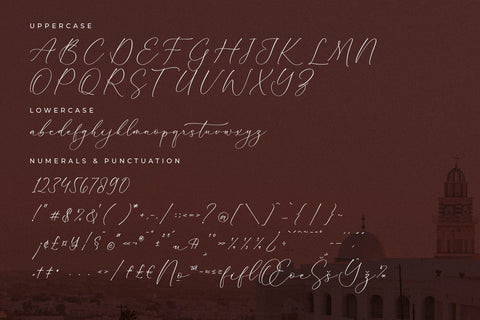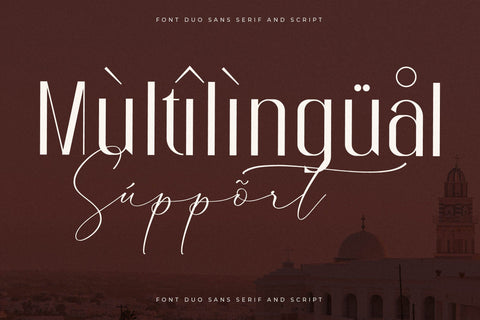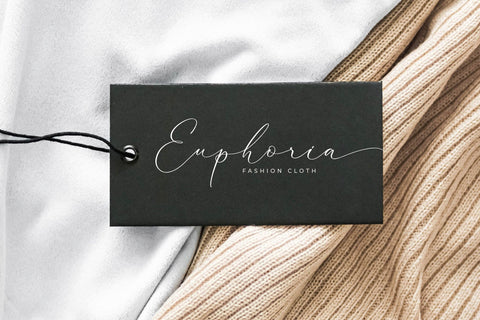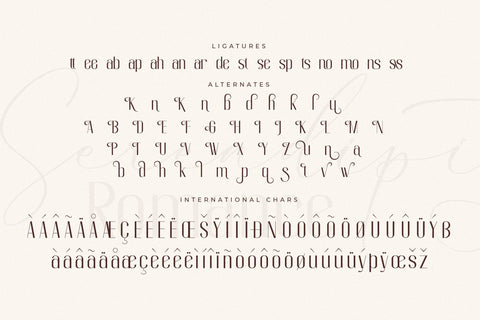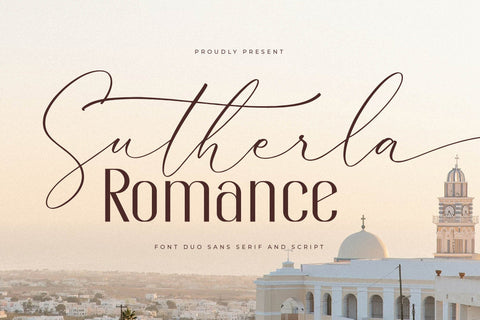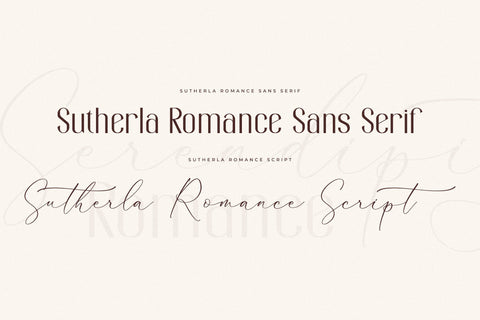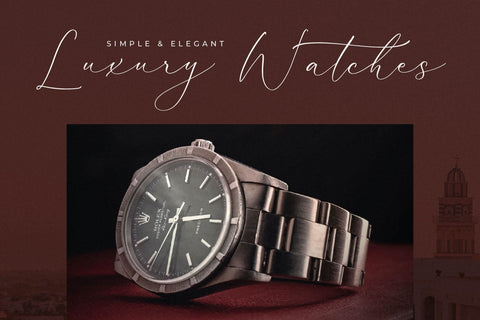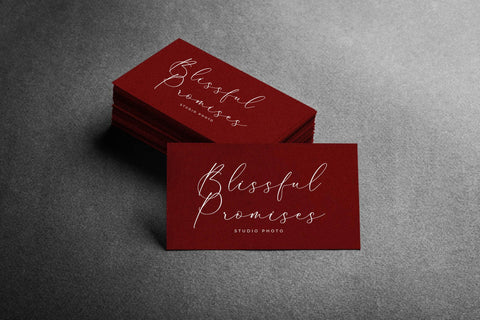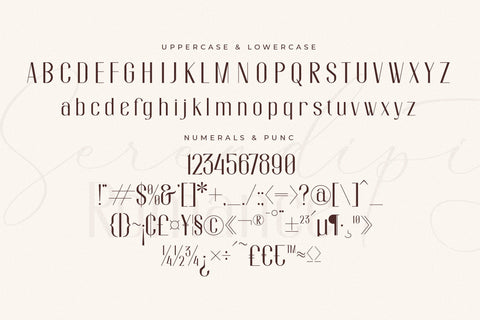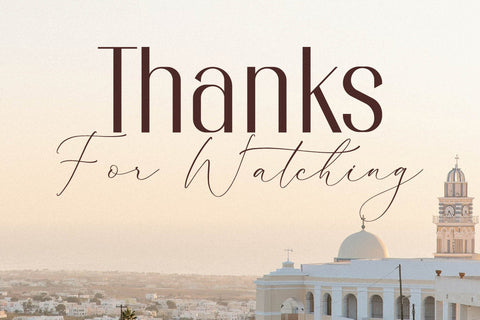
Sutherla Romance Font Duo
Proudly present Sutherla Romance Font Duo , created by Storytype,
A serif and script typeface that has own unique style & modern look.